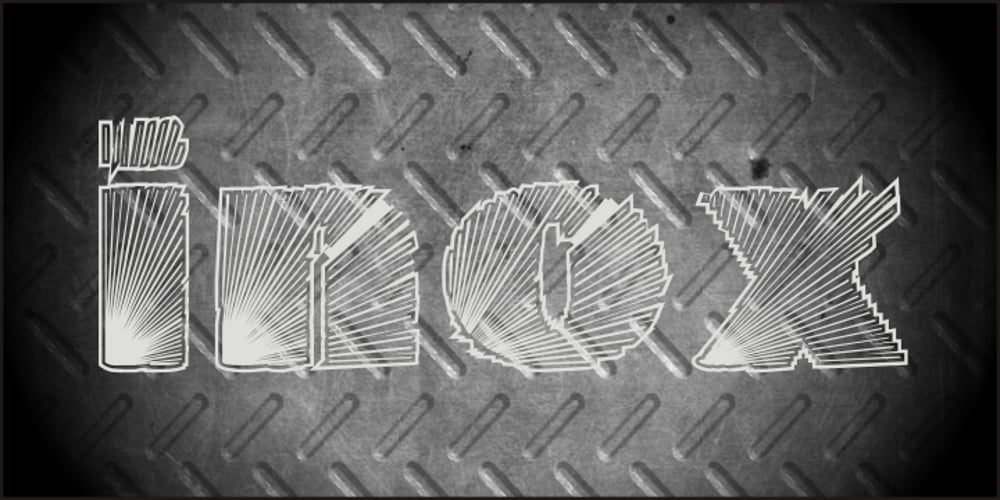
Inox
Inox font
Inox Font Family was designed by Paulo W and published by Intellecta Design. Inox contains 1 styles and family package options. Metal surface font.